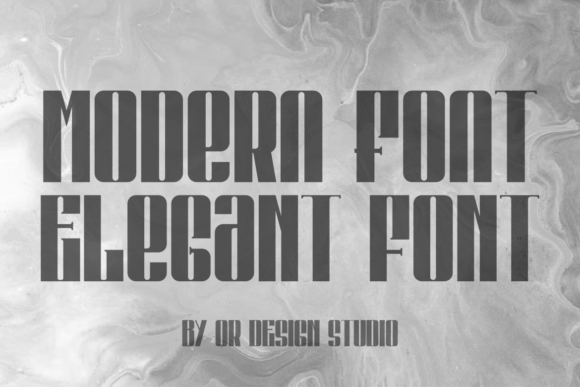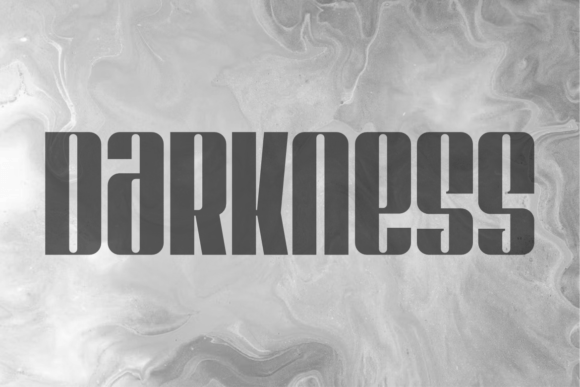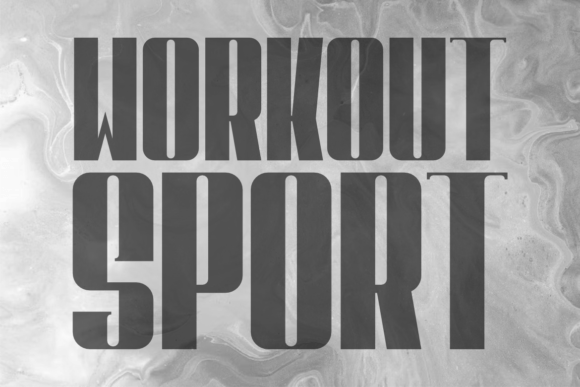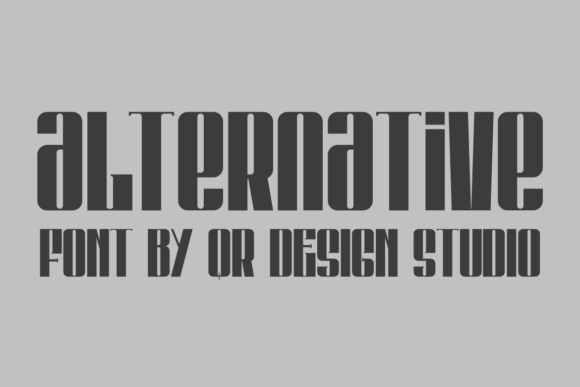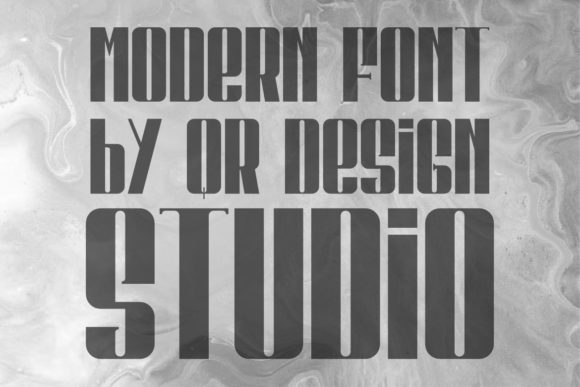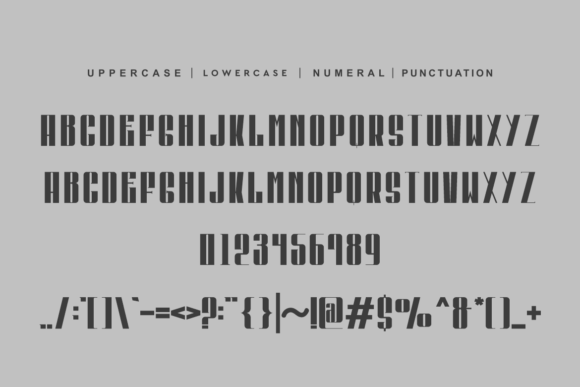
Introduction to Narimopune Font
Have you ever been working on a creative project, pouring your heart and soul into it, and then that one font just clicks? It’s the perfect blend of style, sophistication, and uniqueness that elevates your design to the next level. For designers, finding that perfect font can be a game-changer. And that’s exactly what the Narimopune Font offers – a bold and authentic display font that’s perfect for any branding project, from logos to sports and beyond.
As a valuable design resource, the Narimopune Font is an excellent choice for creative projects. Its high-quality design makes it stand out in a wide range of contexts, and the best part? It’s available for a free download, making it accessible to designers of all levels. With a transparent background, this font is perfect for designers who want to add a touch of elegance to their work without any distractions.
Key Features of Narimopune Font
- High-quality design for various creative projects, including digital art and graphics.
- Supports transparent background, allowing for versatile use in design projects.
- A unique and creative font style, perfect for designers looking for a distinctive design resource.
- Ideal for use in a variety of design applications, including logos, branding materials, and digital graphics.
Honest Review: Narimopune Font
As a designer, I’m always on the lookout for high-quality design resources that can elevate my creative projects. Recently, I stumbled upon the Narimopune Font, and I’m excited to share my honest review.
- ✨ The Narimopune Font has a unique and elegant design that’s perfect for modern creative projects.
- ✨ The font includes a transparent background, allowing for seamless integration into various design elements.
- ⚠️ The font may not be suitable for all types of projects, particularly those requiring a more conservative or traditional look.
Overall, I’m impressed with the Narimopune Font’s potential to enhance my creative projects. While it may have some limitations, its unique design and free download make it a valuable design resource that’s worth considering.
Narimopune Font
The Narimopune Font is a high-quality design resource that can elevate your creative project. With a transparent background, it offers versatility and flexibility for various design applications.
Tips for Getting the Most Out of Narimopune Font
To get the most out of Narimopune Font, experiment with different font sizes, colors, and combinations. Use it to create visually appealing headings, titles, and body text.
The Narimopune Font is commonly used for creating logos, branding materials, social media graphics, and other visual content. It’s also used for creating presentations, documents, and other written content that requires a high-quality font.